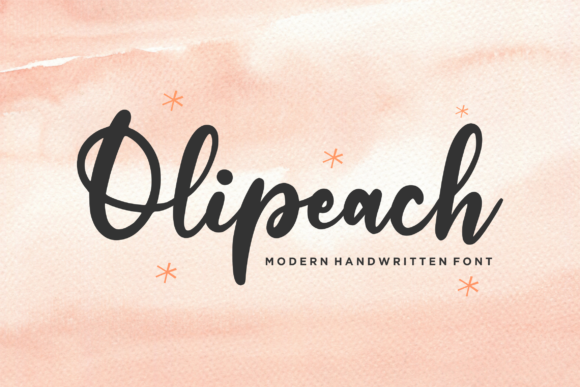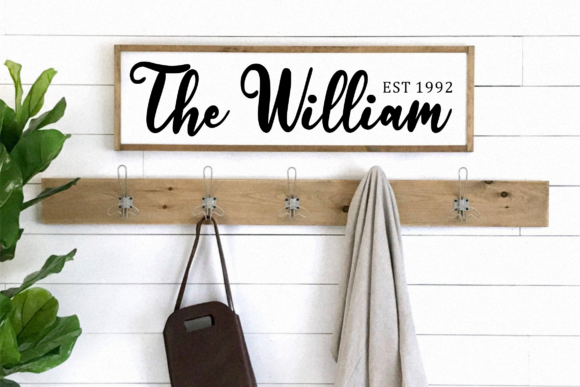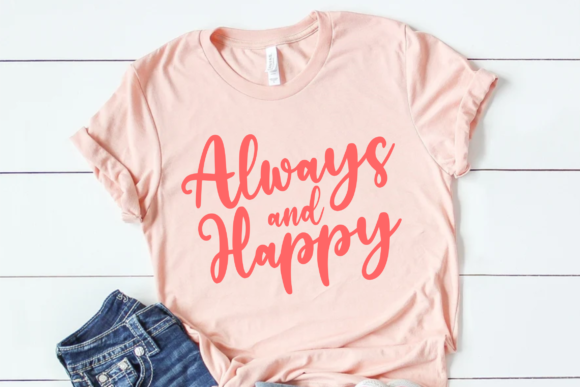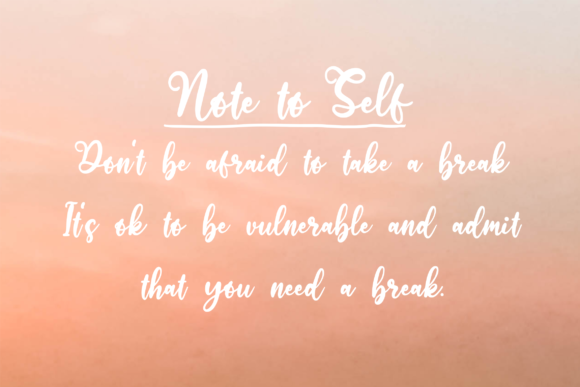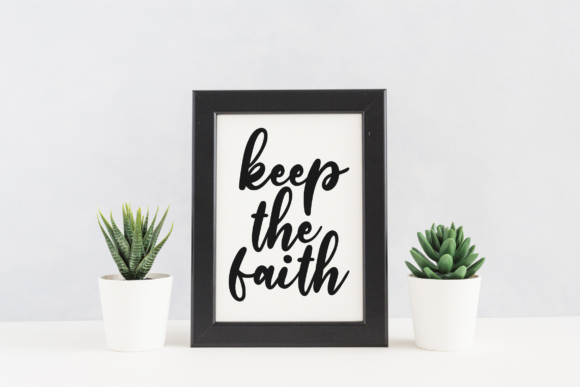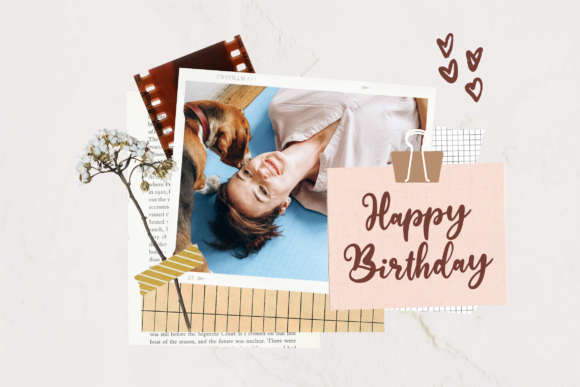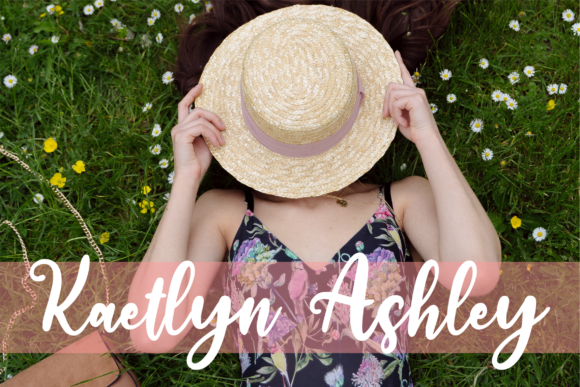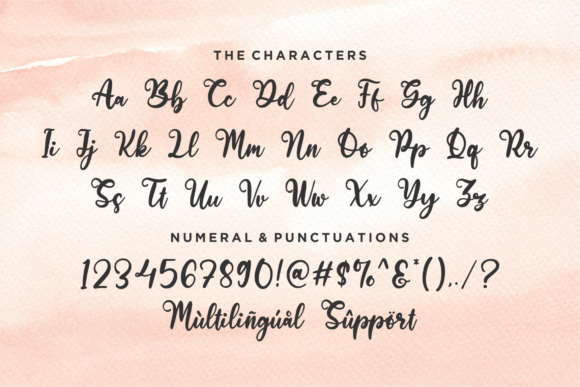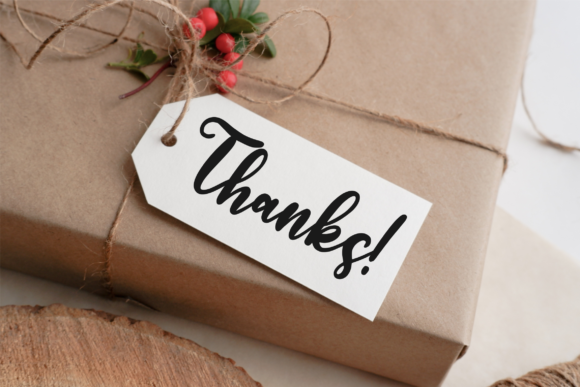
Olipeach Font
About Olipeach Font
“Olipeach” is a script font that radiates loveliness and charm. Its characters have a playful quality that gives the illusion of dancing along the baseline, infusing your text with a dynamic and whimsical touch. When you incorporate this font into your creative ideas, you’ll immediately notice how it elevates them and makes them truly stand out.
The font’s charm lies in its ability to inject your designs with a sense of personality and liveliness. Each character is carefully crafted to exude a playful energy, adding a unique and captivating flair to your text.
As you experiment with “Olipeach” in your creative projects, you’ll discover its transformative power. By applying this font to your designs, you’ll witness how it breathes life into your ideas and brings them to the forefront.
In essence, “Olipeach” isn’t just a font; it’s a tool for enhancing your creative concepts and making them shine. Its playful nature and dynamic design ensure that your ideas don’t simply blend in but capture the viewer’s attention and leave a lasting impression. With “Olipeach,” your creativity takes center stage, and your projects become vibrant and captivating expressions of your unique vision.